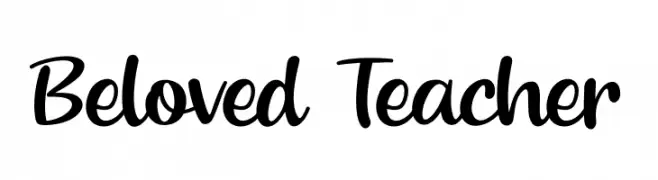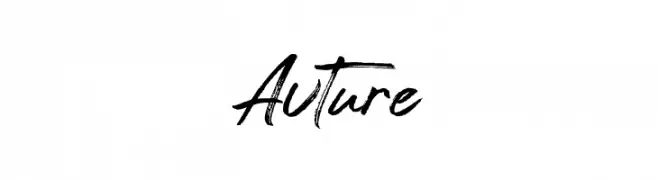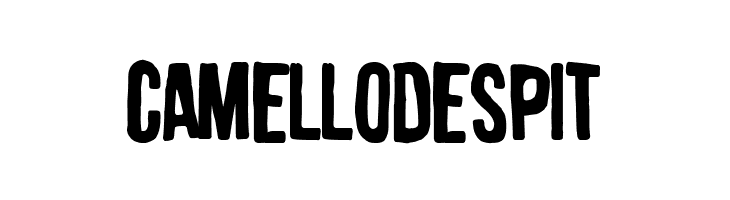
A bold, brush-style handwritten font with dynamic, slanted strokes.
A bold, brush-style font with an energetic and artistic flair.
A playful, flowing script font with a handwritten appearance.
A bold, brush-style font with dynamic and expressive strokes.
A bold, expressive font with a hand-painted, textured style.
A dynamic, cursive script font with bold, expressive strokes.
A playful, rounded font with a handwritten feel, perfect for informal projects.
A playful, informal handwritten font with smooth, rounded strokes.
A playful, rounded font with a friendly and approachable style.
A bold, brush-style font with dynamic and energetic strokes.